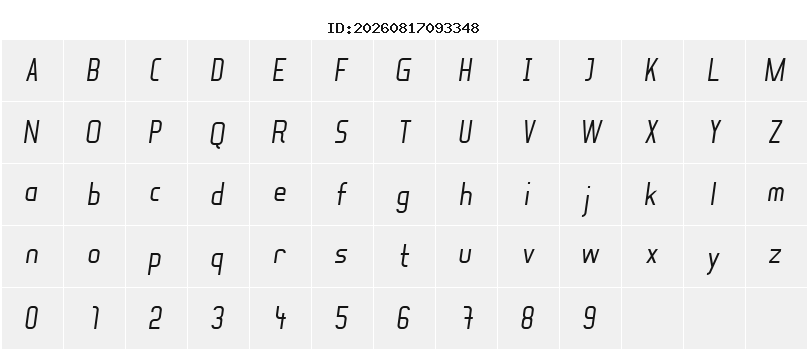
Soul Lotion Preview
• Font Name: Soul Lotion
• Font ID: ManuelViergutz: Soul Lotion Italic: 2011
• Full Font Name: Soul Lotion Italic
• PostScript Name: SoulLotion-Italic
• Designer: Manuel Viergutz
• Manufacturer: Manuel Viergutz
About Soul Lotion.ttf
Soul Lotion.ttf is a modern, elegant sans-serif font designed for ultimate readability and visual harmony. Perfect for branding, headlines, web design, and print materials.